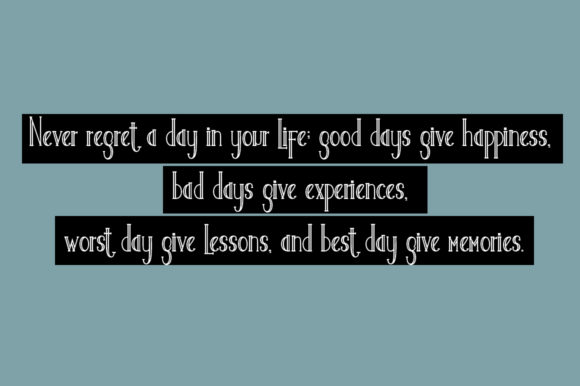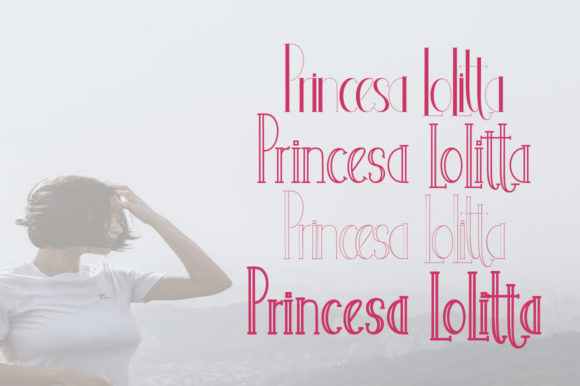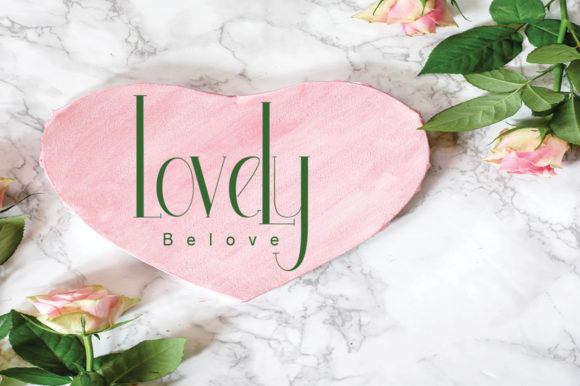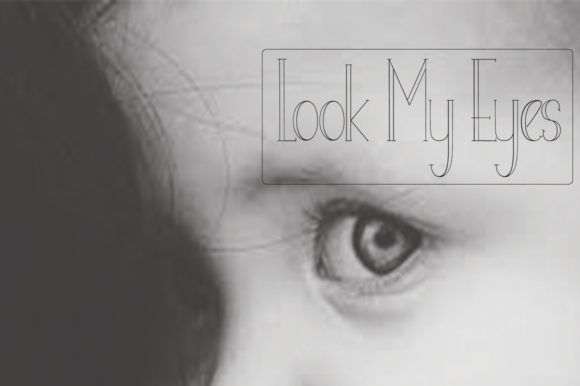
Introducing Armadoni: The Elegant Serif Font for Every Occasion
Are you tired of using the same old fonts in your designs? Look no further than Armadoni, a minimal yet elegant serif font that’s perfect for a wide range of projects. With its neat and simple style, Armadoni is sure to become your go-to font for any occasion.
The Characteristics of Armadoni
Armadoni is a serif font that exudes elegance and sophistication. Its minimal design makes it versatile and easy to read, while its classic serif details add a touch of refinement. The font is characterized by its:
- Clean lines: Armadoni’s lines are sleek and uncomplicated, making it perfect for designs that require a simple yet effective font.
- Classic serif details: The font’s serif details add a touch of elegance and sophistication, making it suitable for high-end designs.
- Legibility: Armadoni is designed to be easy to read, making it perfect for body text, headings, and titles.
Why Choose Armadoni?
So why choose Armadoni over other fonts? Here are just a few reasons:
- Versatility: Armadoni is suitable for a wide range of designs, from elegant wedding invitations to modern business cards.
- Elegance: The font’s classic serif details and clean lines make it perfect for designs that require a touch of sophistication.
- Easy to read: Armadoni’s legibility makes it perfect for body text, headings, and titles.
Use Cases for Armadoni
Armadoni is a versatile font that can be used in a variety of designs, including:
- Wedding invitations: Armadoni’s elegant design makes it perfect for wedding invitations, save-the-dates, and other wedding-related materials.
- Business cards: The font’s clean lines and classic serif details make it suitable for modern business cards.
- Branding: Armadoni can be used in branding materials, such as logos, packaging, and advertising.
- Digital designs: The font is perfect for digital designs, including website headers, social media graphics, and email newsletters.
Tips for Using Armadoni
Here are a few tips for using Armadoni in your designs:
- Pair it with a sans-serif font: Pairing Armadoni with a sans-serif font can create a beautiful contrast and add visual interest to your design.
- Use it for headings and titles: Armadoni’s elegance makes it perfect for headings and titles.
- Experiment with font sizes: Armadoni looks great in a variety of font sizes, from large headings to smaller body text.
| Author | parawtype |
In conclusion, Armadoni is a versatile and elegant serif font that’s perfect for a wide range of designs. Its clean lines, classic serif details, and legibility make it a great choice for designers and crafters. Whether you’re designing a wedding invitation, business card, or digital design, Armadoni is sure to become your go-to font.